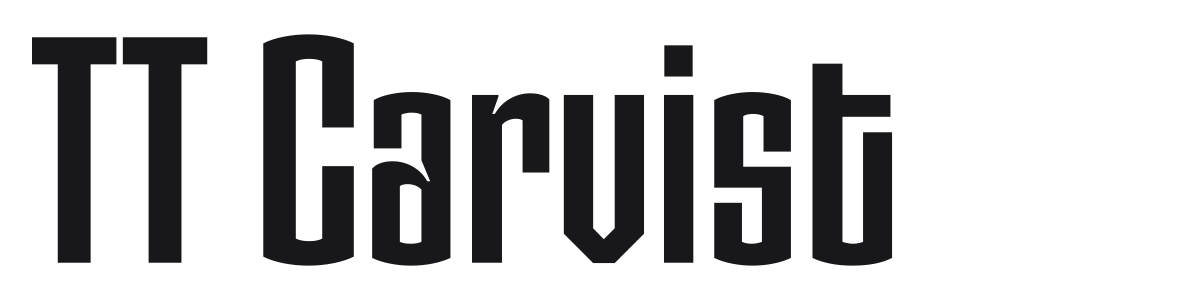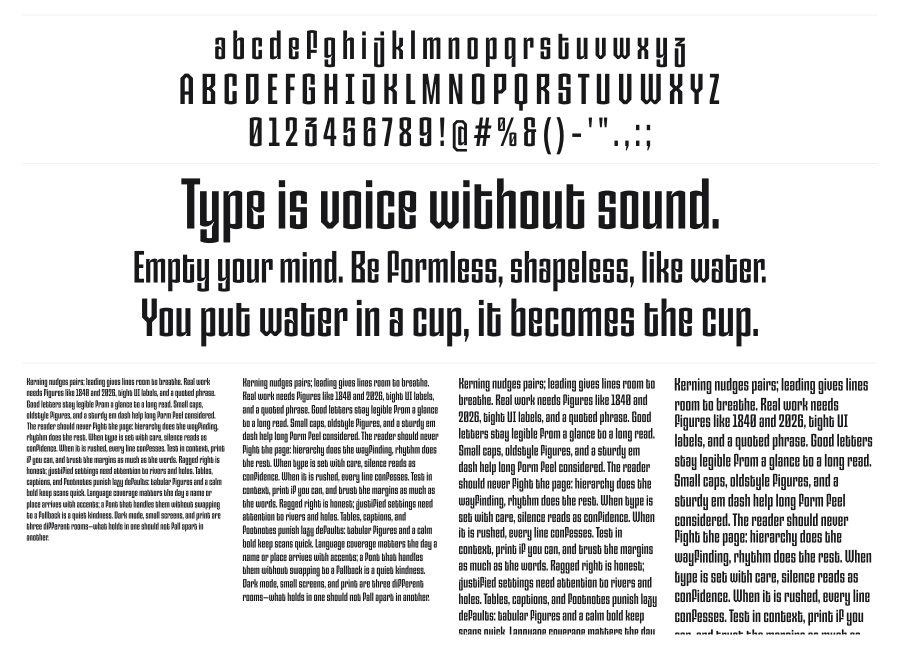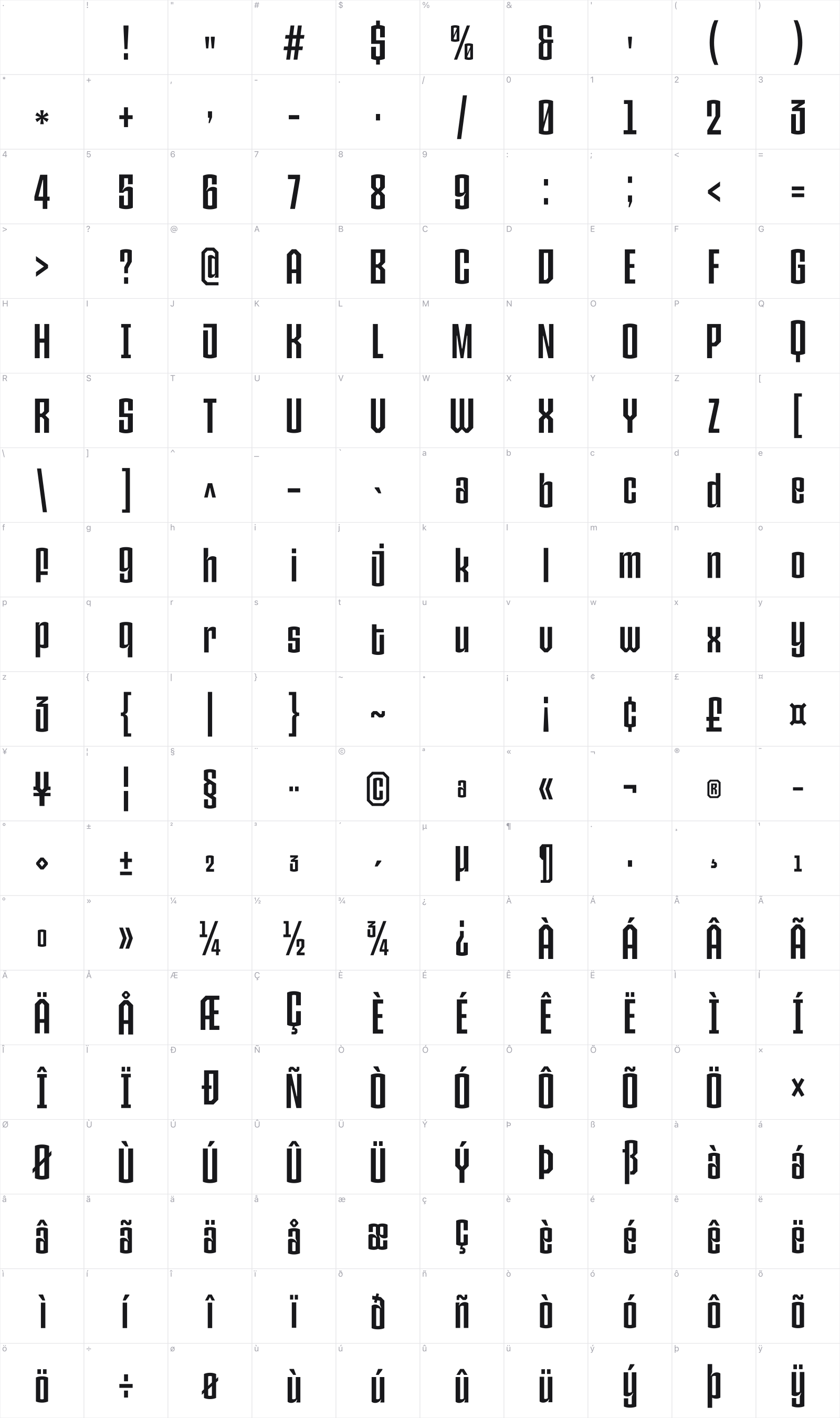
TT Carvist
TT Carvist is an ultra-condensed display sans from TypeType with a heavy, carved character and strong Art Deco bones. The extreme narrowness and flat geometric construction create a dense, almost architectural rhythm across a line of text. It carries real visual weight without relying on ornamentation, making it a natural choice for posters, editorial headlines, and sports branding.